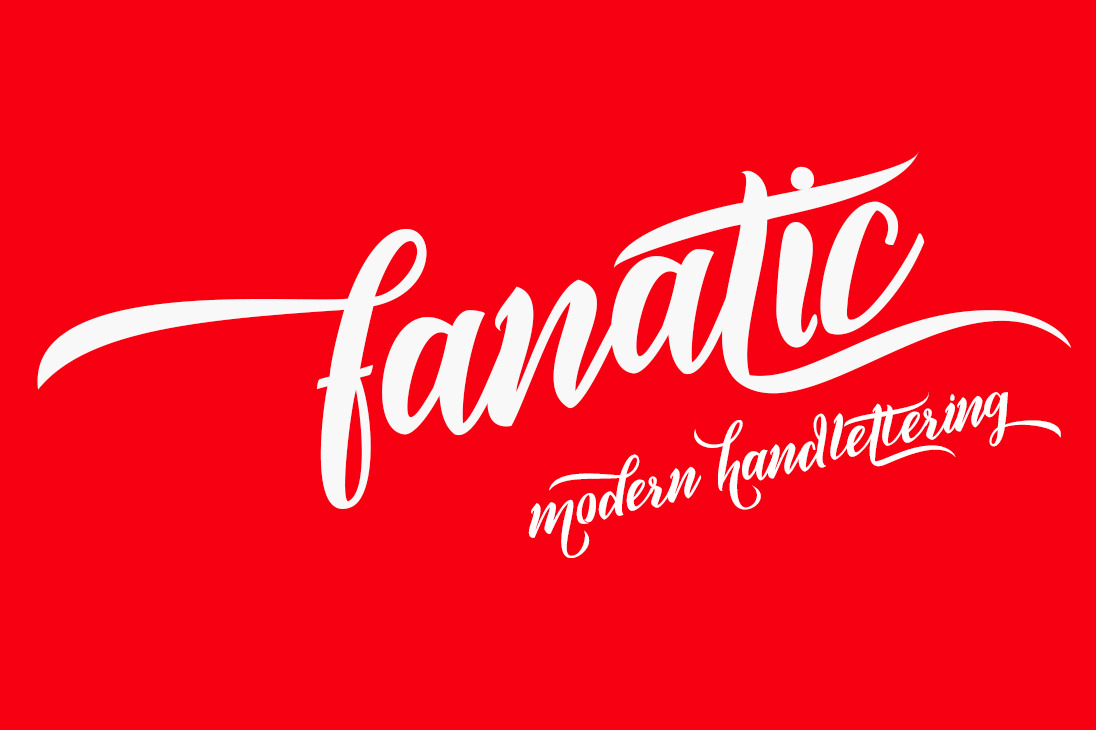
Fanatic Font
Fanatic is, fun, modern, bold and multi-purpose typeface combines handwritten letters brush naturally. It is suitable for logos, packaging, titles, posters, t-shirts, etc. With 256 glyphs and 90 alternate character, you can mix and match according to your design Fanatic. Alternate characters are divided into several OpenType features such as ligature, alternately Contextual, alternating style, set style, and swash.
- Initial Alternates
- Contextual Alternates
- Standard ligatures
- Unique ligatures
- Stylistic sets
- International Symbols include